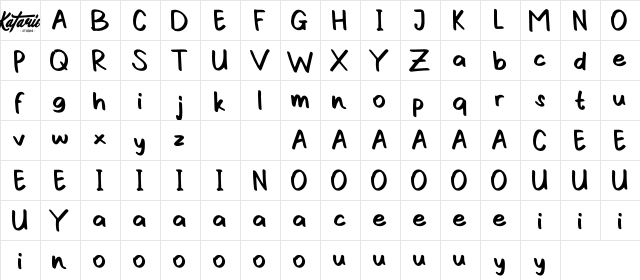
Sidenotez-Demo Regular
| Foundry | Katario Studio |
| Designer | Rioniga Zandy |
Design Context for Sidenotez-Demo Typeface
Sidenotez-Demo takes a measured approach to typography — its balanced proportions and neutral character make it a reliable workhorse for both digital and print work.